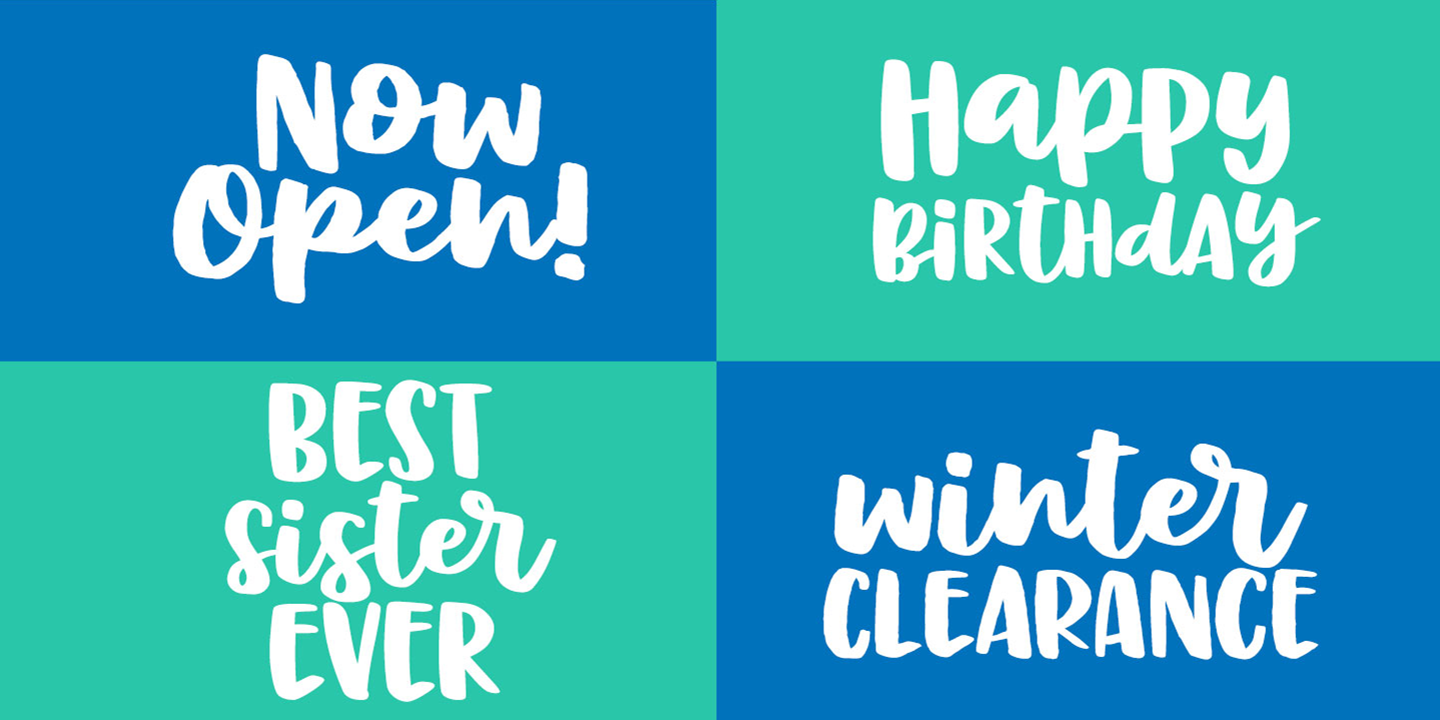
Mystical Woods Font is perfect for fantasy novel covers, enchanted forest retreat branding, magical wellness spa signage, Celtic spiritual center materials, fairy tale wedding invitations, mystical jewelry boutique logos, nature-based meditation app interfaces, and ethereal music festival promotions.
Mystical Woods Font is exciting because it channels the ancient magic and primordial wisdom of deep forest sanctuaries with its organically flowing letterforms that seem to grow like sacred trees and whisper with the voices of woodland spirits. The typeface embodies the mysterious connection between nature and the supernatural, creating an immediate sense of enchantment and spiritual awakening that transports viewers to realms where magic still lives.
Mystical Woods Font family includes Light, Regular, Medium, Bold, and Enchanted variants, complemented by nature-inspired flourishes and mystical symbol elements, providing designers with magical typography tools for creating communications that honor both natural beauty and supernatural wonder.
Whether you're developing a fantasy entertainment brand identity, designing spiritual retreat materials, or creating mystical wellness content, Mystical Woods Font Free Download offers unmatched enchantment and natural authenticity. This captivating typeface perfectly balances earthy organic aesthetics with ethereal mystical energy, ensuring your communications resonate with audiences seeking deeper connections with nature's hidden mysteries. The font's flowing character variations and magical rhythm make it particularly effective for brands that celebrate ancient wisdom, natural healing, and the kind of spiritual journey that unfolds in sacred natural spaces. Wellness and entertainment professionals consistently select Mystical Woods Font when projects require typography that communicates mystery, natural magic, and the kind of transformative experience that occurs when modern souls reconnect with the timeless wisdom of ancient forests, making it essential for spiritual branding, fantasy entertainment marketing, and any application where enchanted typography can evoke the profound peace and magical possibilities that exist within nature's most sacred and mysterious places.